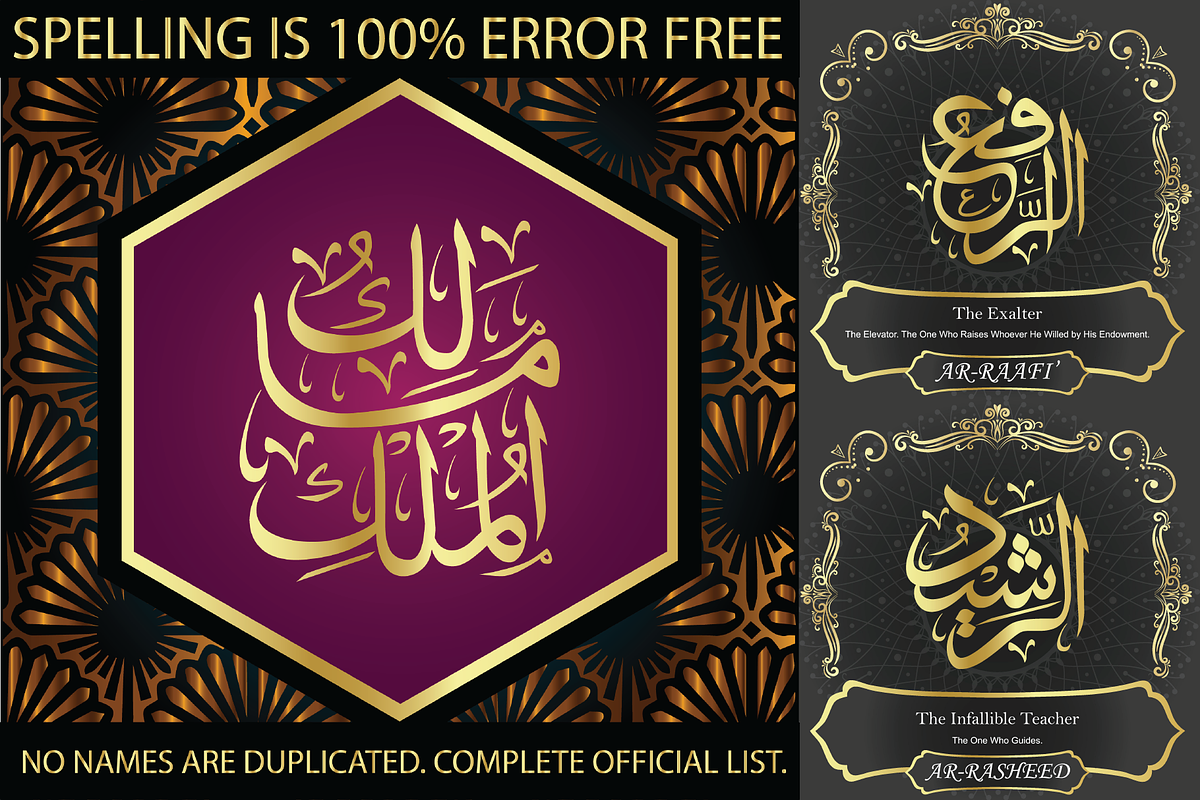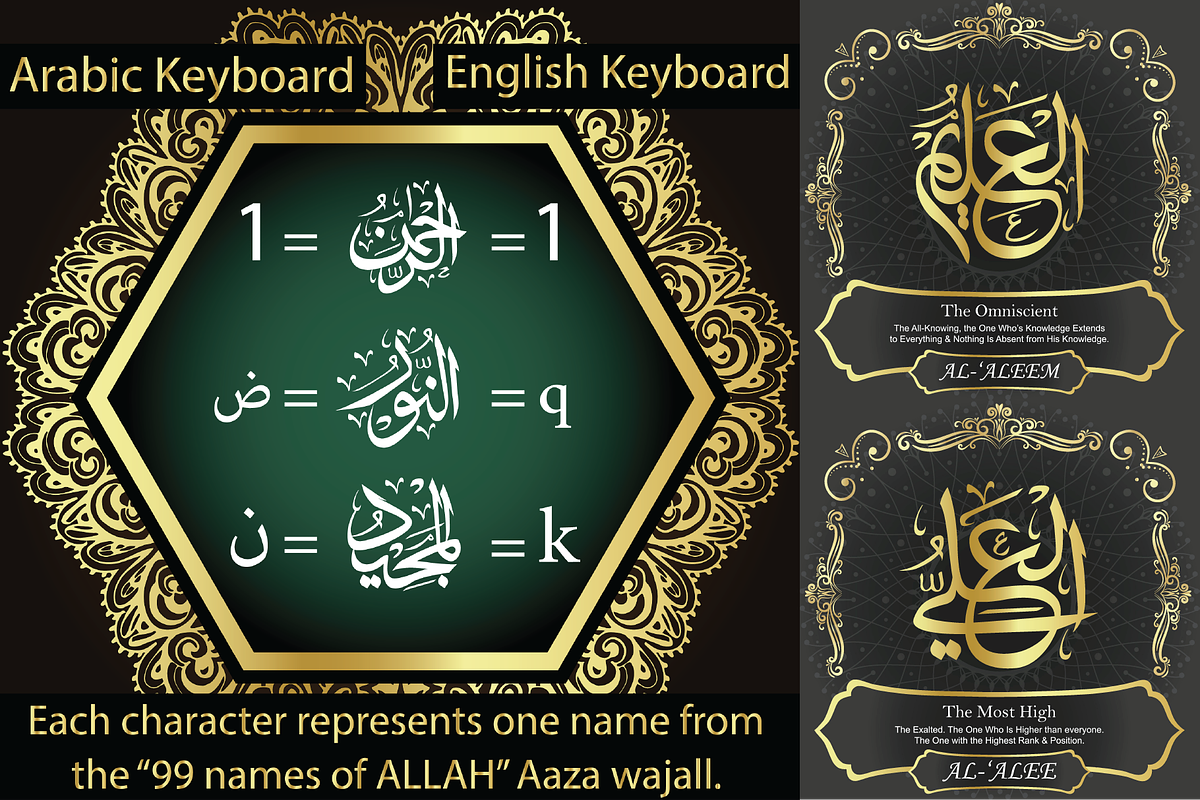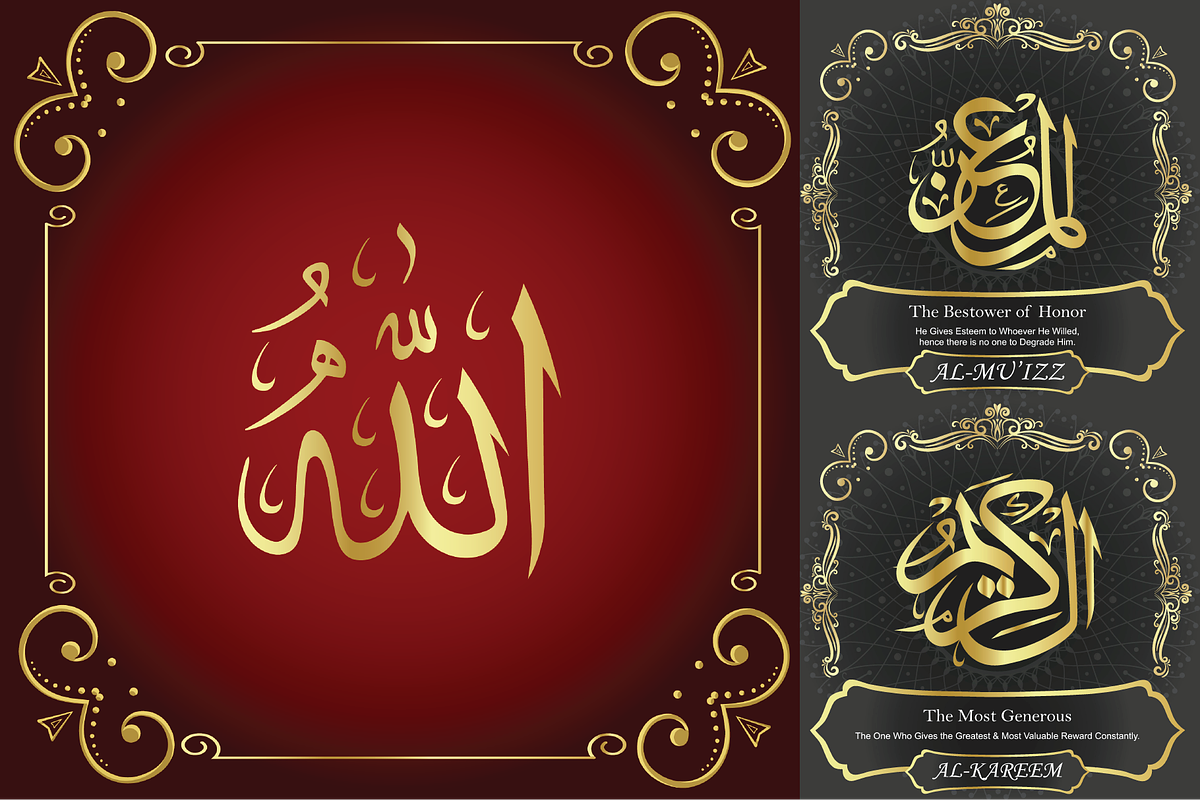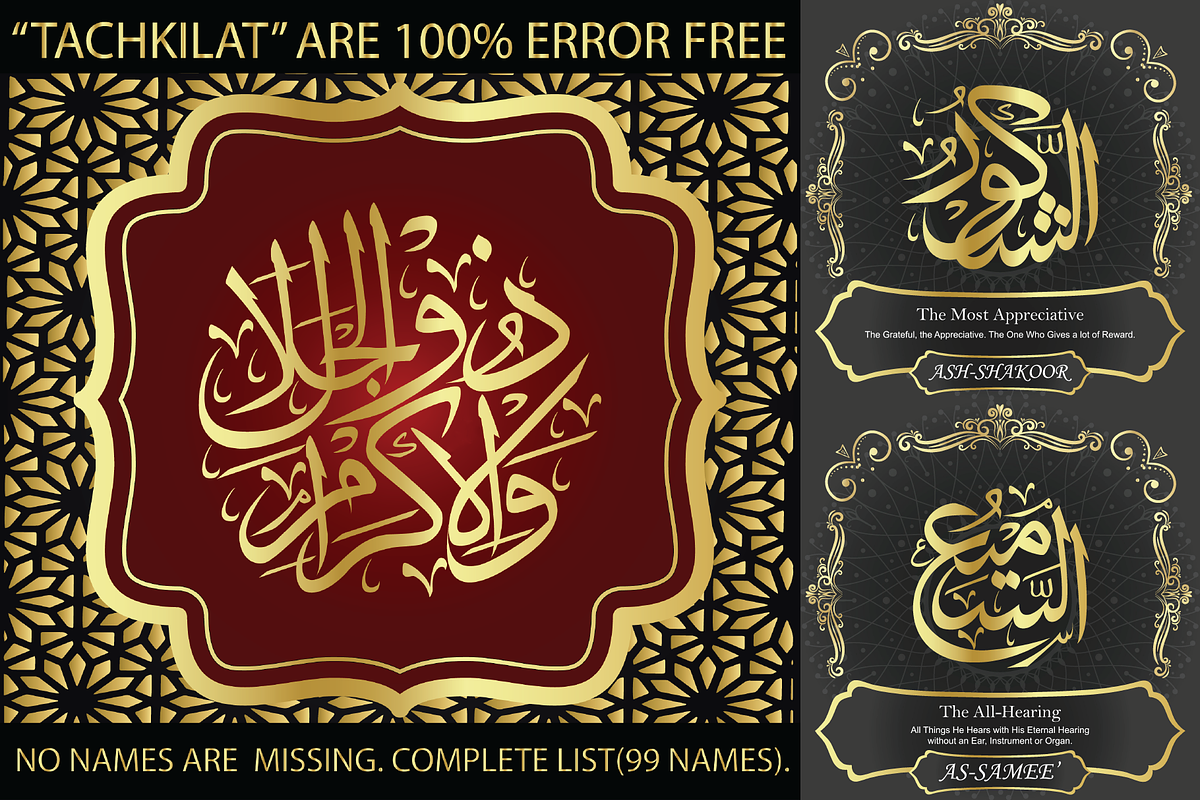
99 Names of ALLAH "Random" Font
We have transformed the “99 names of ALLAH” into a font. That means each key on your keyboard represents 1 of the 99 names of ALLAH Aaza Wajal. The fonts work with both the English and Arabic Keyboards.
We call this Calligraphy "Random" because we don't follow any one principle to write the names, some overlap some don't, some letters are big and some are small. All the letters, harakat, decorative letters and symbols may differ from one name to another. And even though the first "alef" doesn't have a "fatha", we have decided to include a "fatha" for the best of names, "ALLAH". This is the only calligraphy where the first "alef" in the name "ALLAH" is different than the rest of the names. The "alef" on the name "ALLAH" is not an error nor it is incorrect, both "fatha" inclusion and exclusion are from the same Quranic format.(in the zip file you will find a pdf file explaining the differences in the "harakat", pronunciation and spelling according to the Holy Quran). Decorative symbols are at a minimum. Decorative letters used in this calligraphy: "Mim, Aain, Sin, HHe, He, Kaf".
- Writers: Highlight the names in your texts in beautiful Islamic calligraphy.
- Editors: Use with kinetic typography templates (AE) & editing software.
- Designers: The very small details in the names does not affect the quality. Rest assured it is flawless.
The MOST IMPORTANT THING about this list is that all the names are 100% ERROR FREE, and you can USE THEM WITH YOUR EYES CLOSED. All the “Tachkilat” are 100% ERROR FREE, all the "Spelling" is 100% ERROR FREE, and they all have been written in accordance with the Holy Quran. No names are missing and no names are duplicated. The list is complete "99 names +1". The +1 is the name “ALLAH” 'Aza wajal.
Another important thing is how we use the decorative letters. In every font you will see small decorative letters, these letters are used only in accordance with their respective letters to indicate pronunciation & we don't include them randomly. That means "mim" on top or below the letter "mim", "sin" on top or below the letter "sin", and so on and so forth.